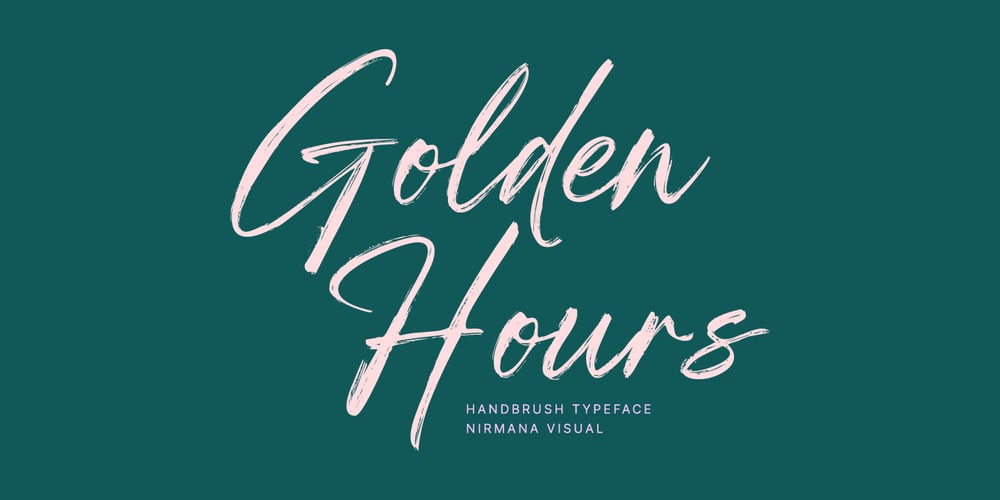
Golden Hours Font Family was designed by Sigit Dwipa and published by Nirmana Visual. Golden Hours contains 1 styles and family package options. Golden Hours Script is a Natural Brush handwriting modern calligraphy font.Introducing our dynamic dry brush style font, a typeface that infuses your designs with a lively and handcrafted aesthetic. With its bold strokes and rough texture, this font is perfect for creating designs that exude a sense of energy, spontaneity, and authenticity.the appearance of being painted with a dry brush create a unique, hand-drawn quality that sets your designs apart.